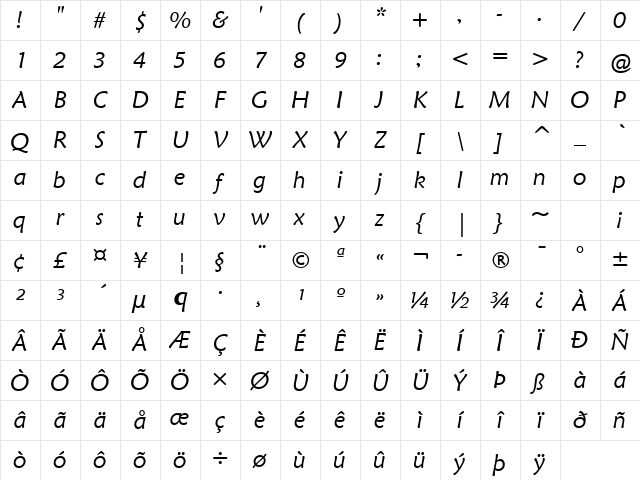
Complete Maiandra GD Italic glyph index. Displaying only characters natively supported by Maiandra GD Italic font.
Maiandra GD is a composed and adaptable typeface that performs quietly and consistently across a wide range of design contexts. The slanted form adds forward momentum and visual energy.
Pro Tip: Use Maiandra GD for emphasis, pull quotes, and subheadings where its slanted energy can add rhythm to the layout.